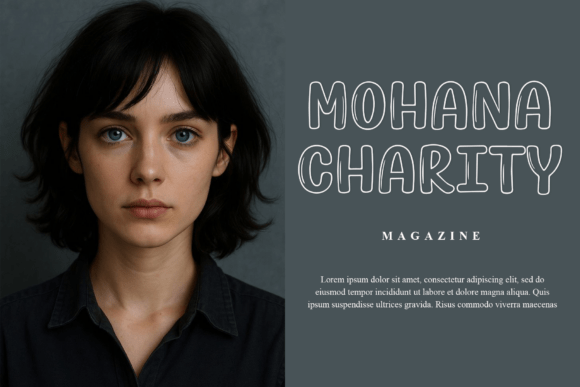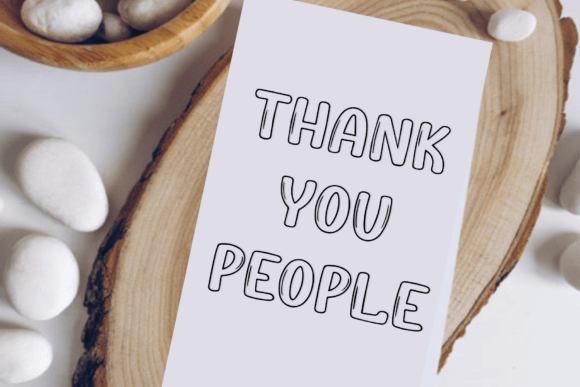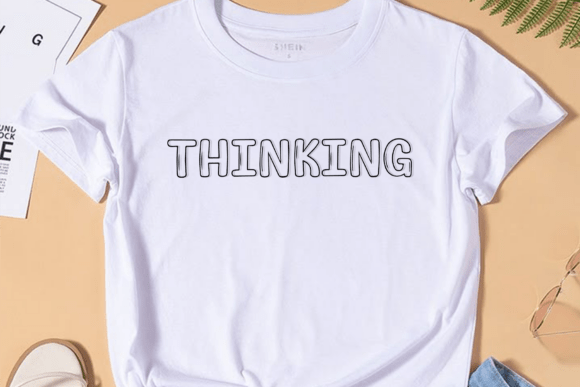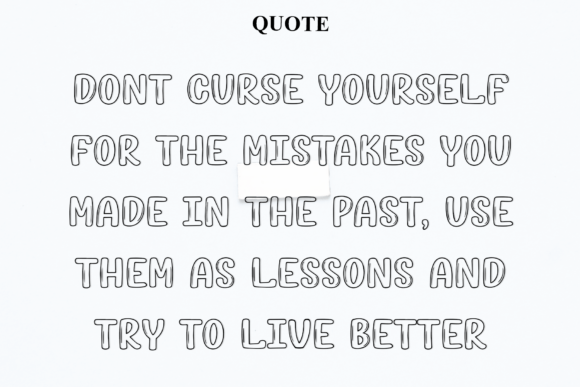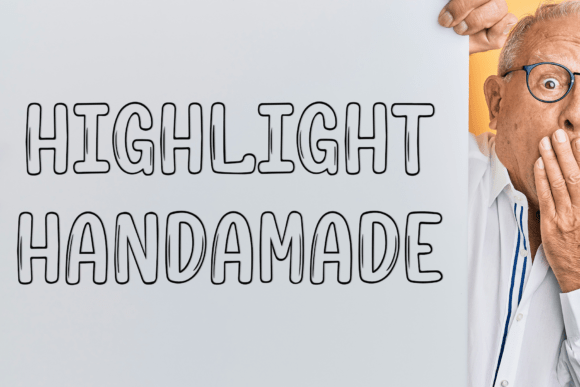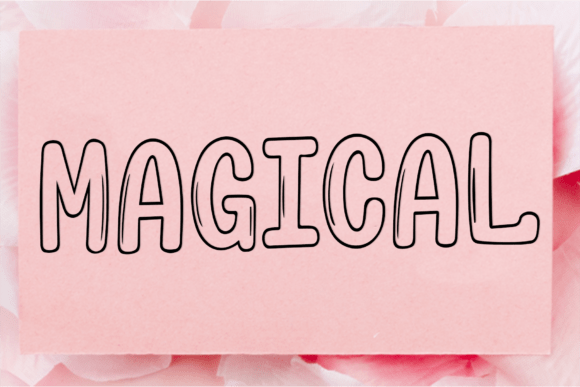
Bubbly Varsity Font: The Perfect Addition to Your Design Arsenal
Are you tired of using the same old fonts in your designs? Look no further than the Bubbly Varsity font, a casual and creative typeface that exudes warmth and friendliness. With its round, playful strokes, this font creates a relaxed and approachable feel that’s perfect for personal projects, invitations, and social media graphics.
The Charm of Bubbly Varsity
Bubbly Varsity’s charming, hand-drawn aesthetic adds a fun and unique touch to any design. The font’s playful strokes and rounded edges create a sense of whimsy and approachability, making it perfect for designs that need a personal touch. Whether you’re creating a birthday invitation, a social media graphic, or a personal blog, Bubbly Varsity is the perfect font to add some personality to your design.
What Makes Bubbly Varsity Special?
So, what sets Bubbly Varsity apart from other fonts? Here are a few features that make it a standout:
- Hand-drawn aesthetic: The font’s hand-drawn aesthetic gives it a unique and personal touch that’s perfect for designs that need a human feel.
- Playful strokes: The font’s round, playful strokes create a relaxed and approachable feel that’s perfect for personal projects and social media graphics.
How to Use Bubbly Varsity in Your Designs
Using Bubbly Varsity in your designs is easy. Here are a few tips to get you started:
- Pair it with other fonts: Bubbly Varsity pairs well with other fonts, especially those with a bold or serif style. Try pairing it with a bold font for a title or heading, and use Bubbly Varsity for the body text.
- Use it for headings and titles: Bubbly Varsity is perfect for headings and titles, especially for personal projects and social media graphics.
- Add some color: Bubbly Varsity looks great with bright, bold colors. Try adding some color to your design to make it pop.
Why Designers and Crafters Love Bubbly Varsity
Designers and crafters love Bubbly Varsity for its unique and playful aesthetic. Here are a few reasons why:
- Easy to read: Despite its playful aesthetic, Bubbly Varsity is easy to read, making it perfect for designs that need to communicate a message.
- Versatile: Bubbly Varsity is versatile and can be used in a variety of designs, from personal projects to social media graphics.
- Unique: Bubbly Varsity’s hand-drawn aesthetic makes it a unique and standout font that’s sure to grab attention.
In conclusion, Bubbly Varsity is a casual and creative font that’s perfect for designers and crafters looking to add some personality to their designs. With its round, playful strokes and charming, hand-drawn aesthetic, this font is sure to grab attention and add a fun and unique touch to any design. Whether you’re creating a personal project, invitation, or social media graphic, Bubbly Varsity is the perfect font to add some warmth and friendliness to your design.